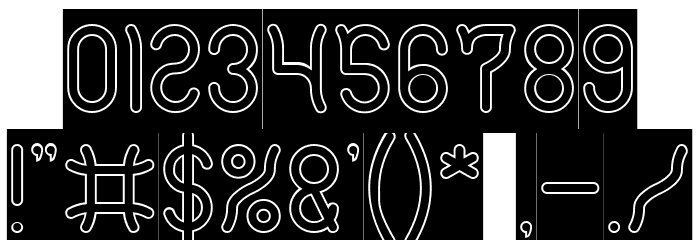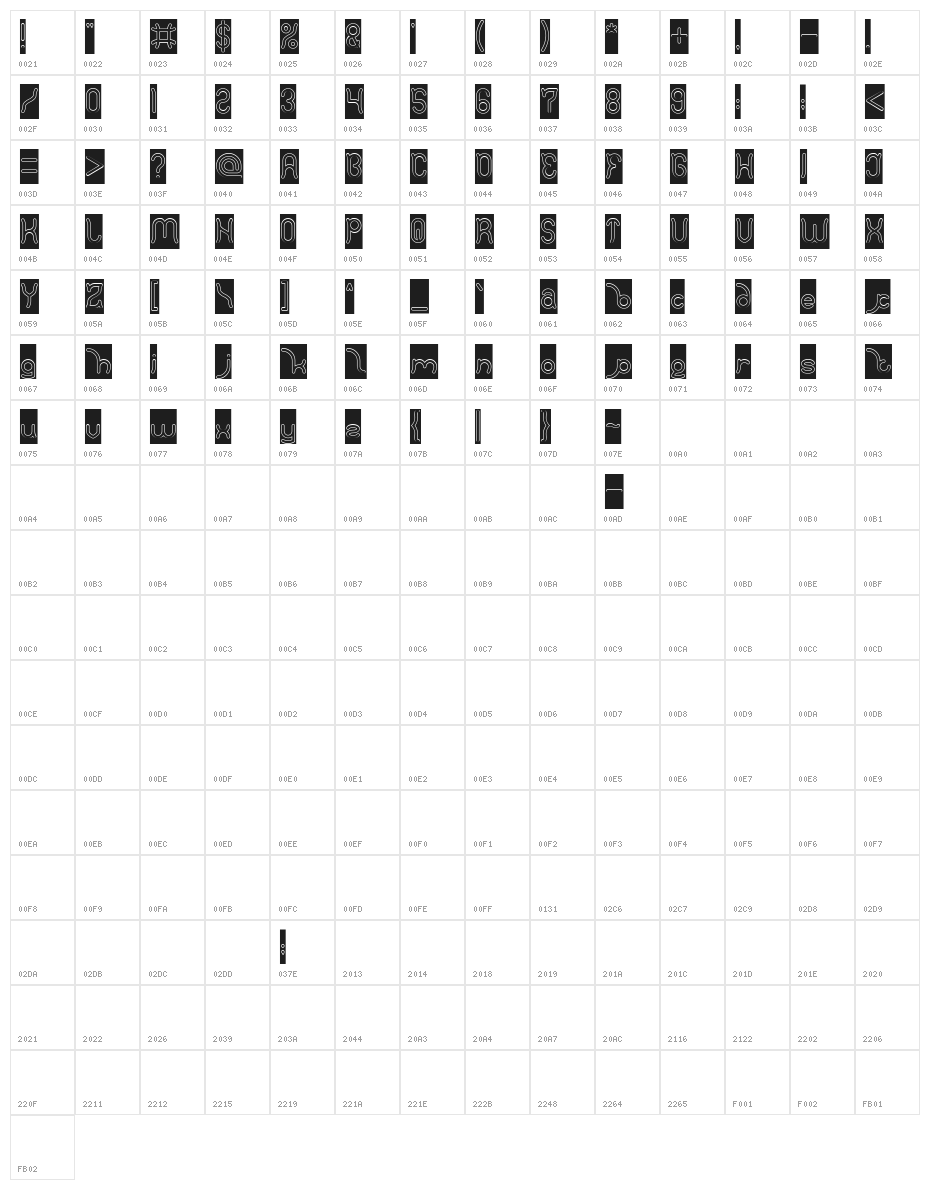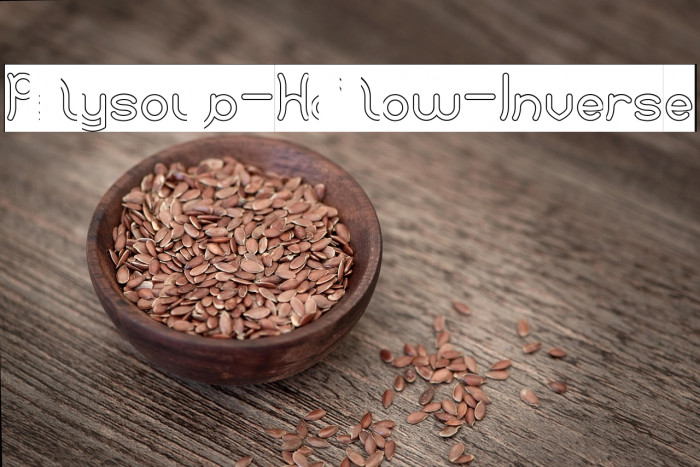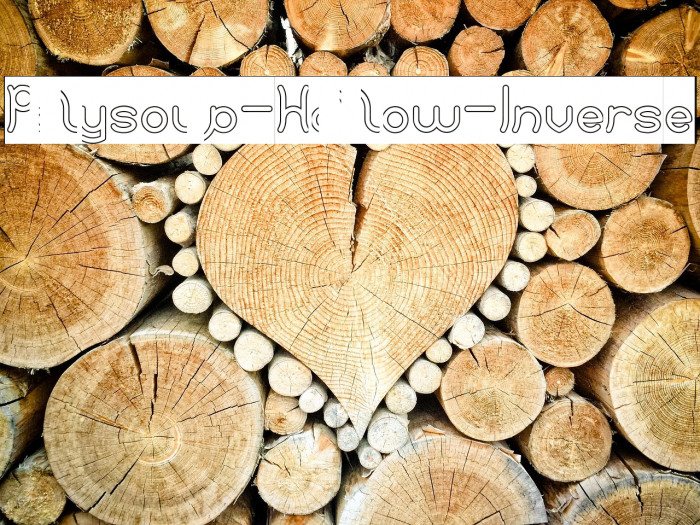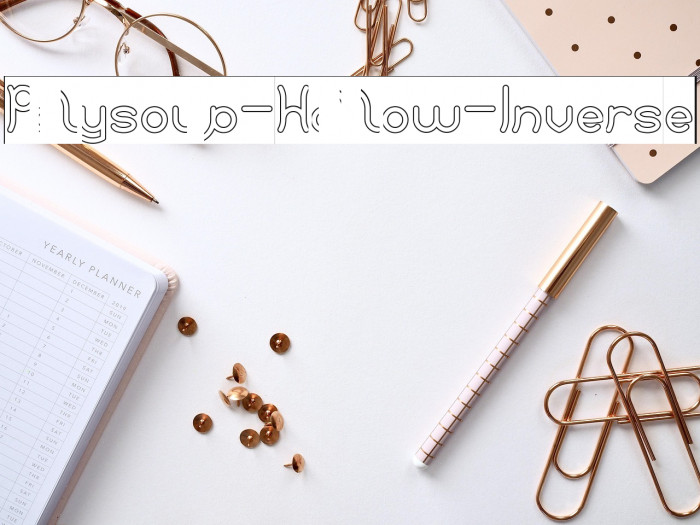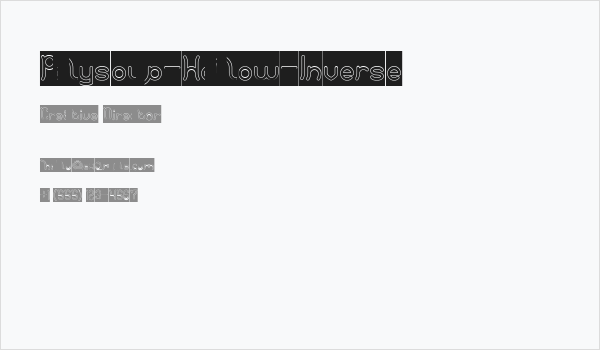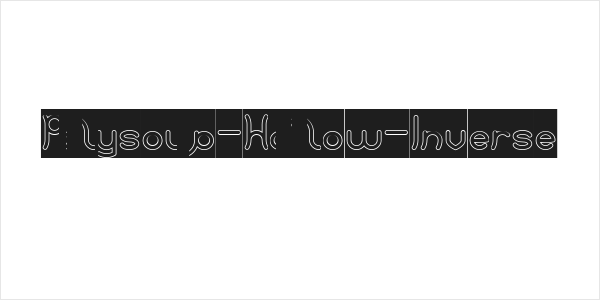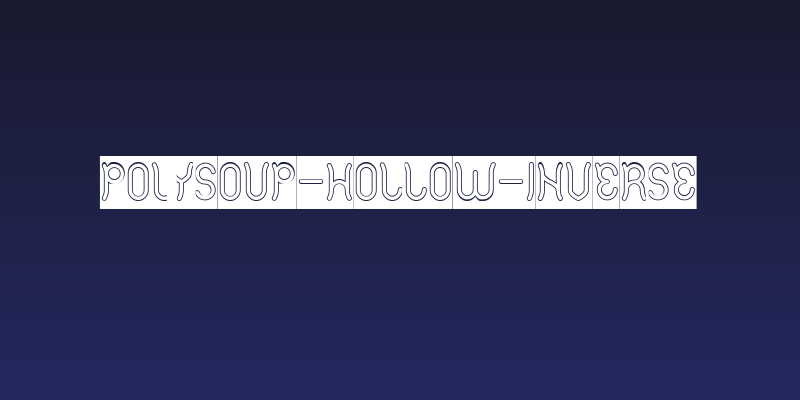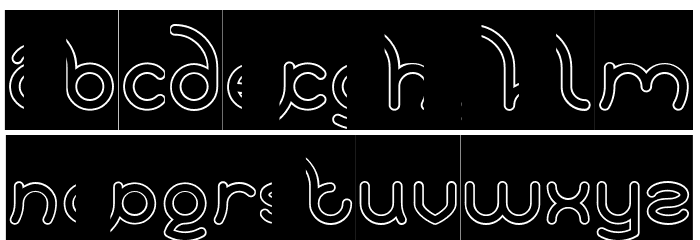
Polysoup-Hollow-Inverse Font
Polysoup-Hollow-Inverse Description
This font features a unique hollow design with an inverse style, creating a striking visual effect. The characters are outlined with a consistent stroke width, giving them a modern and artistic appearance. The uppercase and lowercase letters maintain a cohesive look, while the numbers and special characters complement the overall design. The font's playful curves and geometric shapes make it stand out, offering a creative and contemporary feel. It's perfect for projects that require a bold statement or a distinctive aesthetic.